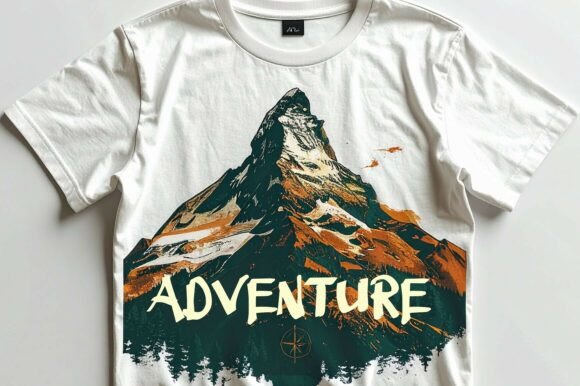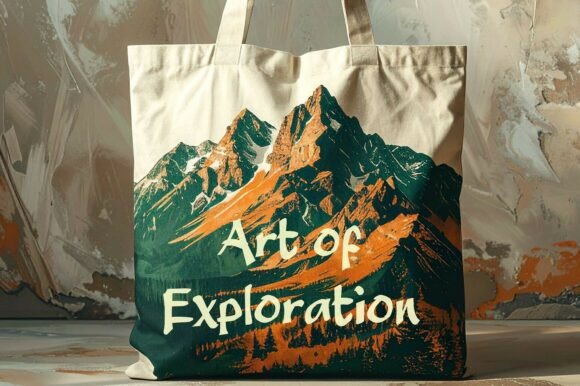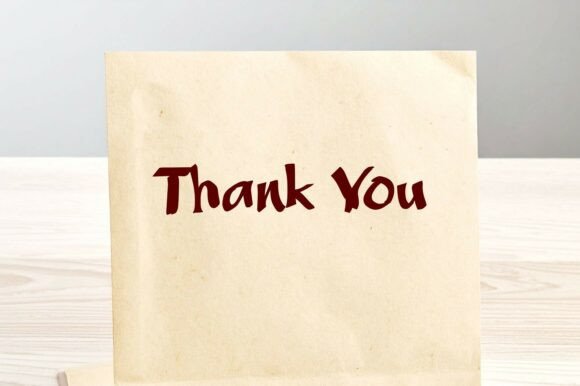
Unleashing the Power of Amblas Font: A Rugged and Expressive Typeface
In the world of typography, few fonts manage to capture the essence of raw energy, adventure, and creativity as effectively as the Amblas Font. This rugged, textured, and expressive typeface has been making waves among designers and crafters, and for good reason. Its unique blend of brush-stroke-like quality, irregular baseline, and visible imperfections gives it a powerful, authentic, and high-energy feel that’s hard to ignore.
The Defining Features of Amblas Font
So, what makes Amblas Font stand out from the rest? Let’s take a closer look at its defining features:
- Raw & Textured: The visible “roughness” and brush-like strokes are the hallmarks of Amblas Font. This texture adds depth and an organic, unpolished feel that’s perfect for designs that require a bit of grit and character.
- Adventurous & Bold: Amblas Font projects a strong sense of daring, exploration, and resilience. Its bold and rugged nature makes it perfect for themes related to the outdoors, sports, or any bold pursuits that require a sense of fearlessness.
- Hand-Painted Vibe: The font’s irregularities and imperfections give it a unique, artisanal touch that’s reminiscent of hand-painted signs or graffiti. This hand-painted vibe sets it apart from perfectly clean fonts and adds a touch of personality to any design.
- Dynamic & Expressive: The variations in stroke and placement make the text feel alive and impactful, drawing the viewer’s eye and commanding attention.
The Strength of Amblas Font’s Visual Identity
One of the key strengths of Amblas Font is its strong visual identity. This font instantly communicates a sense of ruggedness, adventure, and creativity, making it perfect for designs that require a bold and attention-grabbing typography. Whether you’re working on a logo, a poster, or a packaging design, Amblas Font is sure to make a statement.
Why Designers and Crafters Love Amblas Font
Designers and crafters love Amblas Font for several reasons:
- Uniqueness: In a sea of clean and minimalist fonts, Amblas Font stands out for its rugged and textured nature.
- Versatility: Despite its bold and adventurous nature, Amblas Font is surprisingly versatile and can be used in a variety of design contexts.
- Emotional Connection: The font’s hand-painted vibe and dynamic expressiveness create an emotional connection with the viewer, making it perfect for designs that require a personal touch.
How to Use Amblas Font Effectively
To get the most out of Amblas Font, here are some tips on how to use it effectively:
- Pair it with contrasting fonts: Amblas Font’s bold and rugged nature makes it perfect for headlines and titles. Pair it with contrasting fonts to create visual interest and hierarchy.
- Use it for display purposes: Amblas Font is perfect for display purposes, such as posters, billboards, and packaging designs.
- Experiment with colors and textures: Amblas Font’s textured nature makes it perfect for experimenting with different colors and textures. Try pairing it with bold colors or subtle gradients to create a unique look.
In conclusion, Amblas Font is a rugged, textured, and expressive typeface that embodies a raw, adventurous, and slightly distressed aesthetic. Its unique blend of brush-stroke-like quality, irregular baseline, and visible imperfections makes it a powerful, authentic, and high-energy font that’s perfect for designers and crafters who want to add a touch of grit and character to their designs. Whether you’re working on a bold and adventurous project or simply want to add some personality to your design, Amblas Font is sure to deliver.